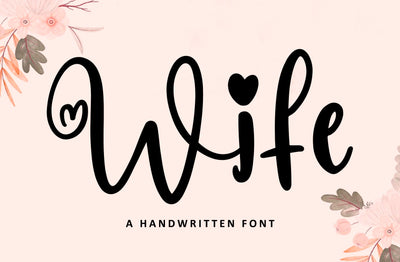
Wife | hanwritten font
Wife is a uniquely shaped handwritten font that is carefully crafted to produce the desired result. This font can be used to write titles, invitations, letters, and many other types of products.